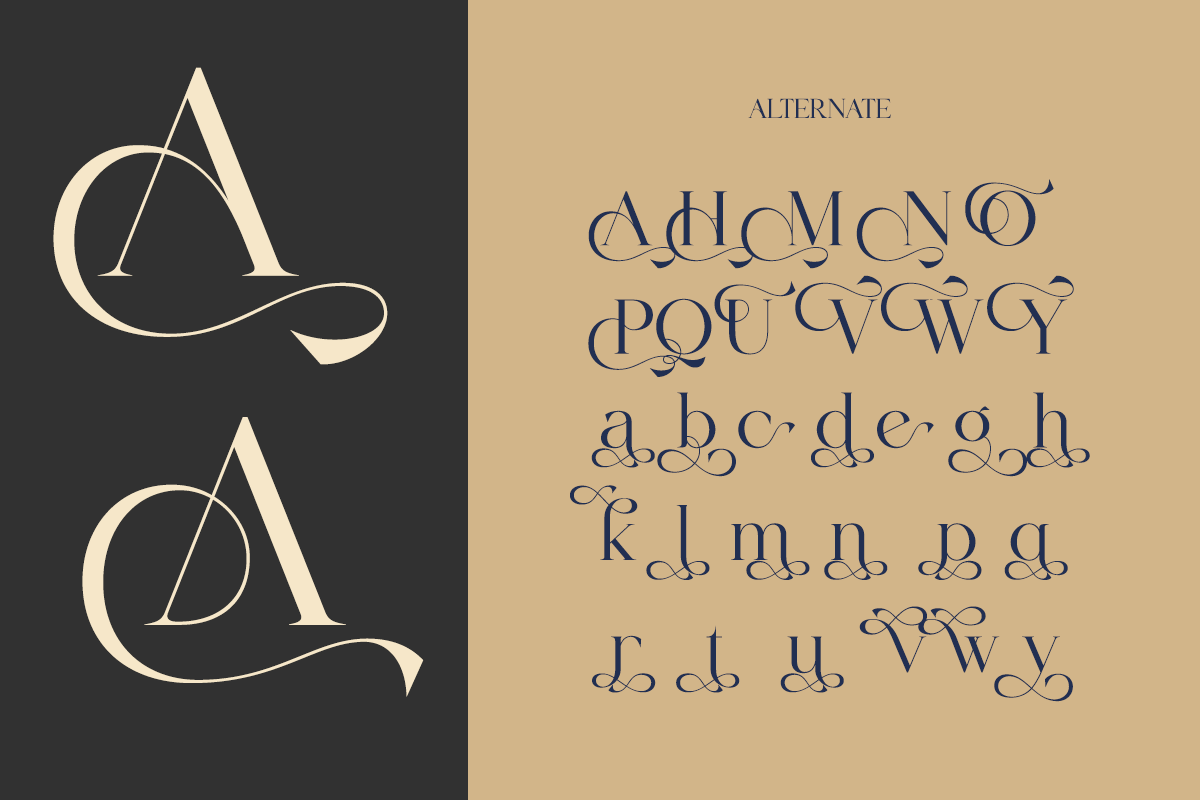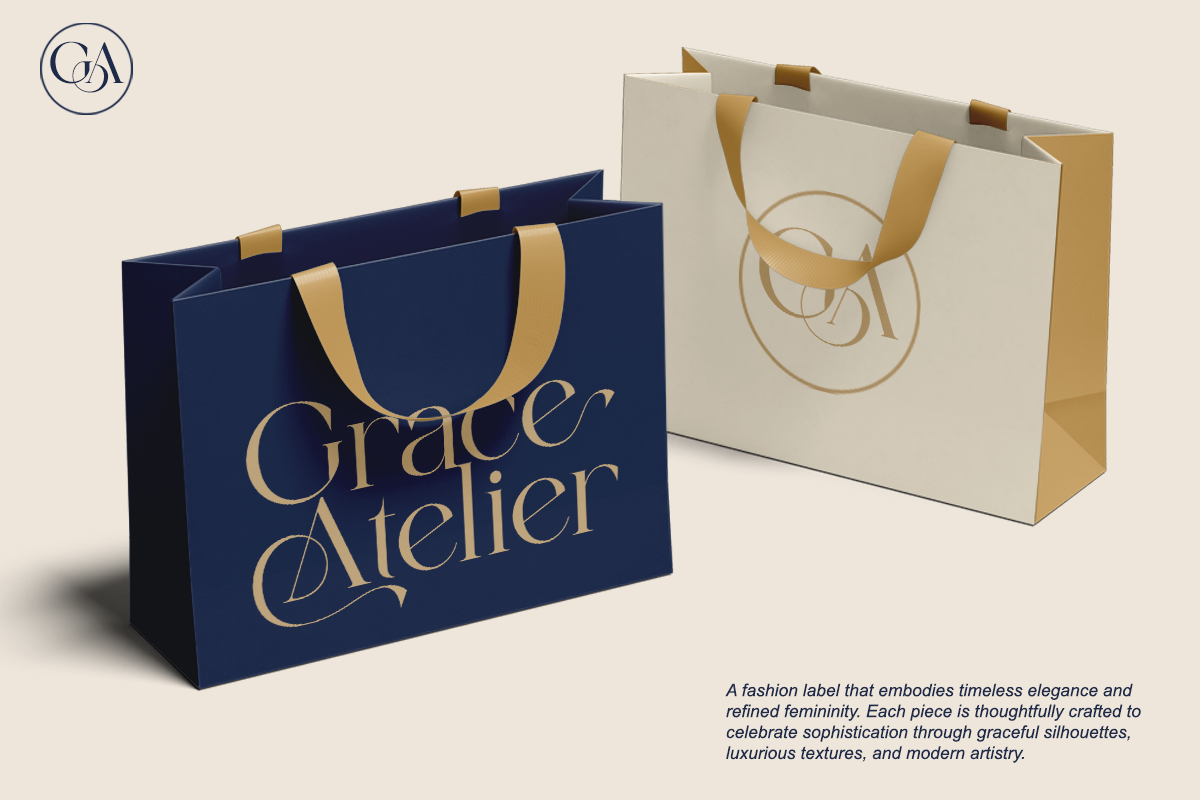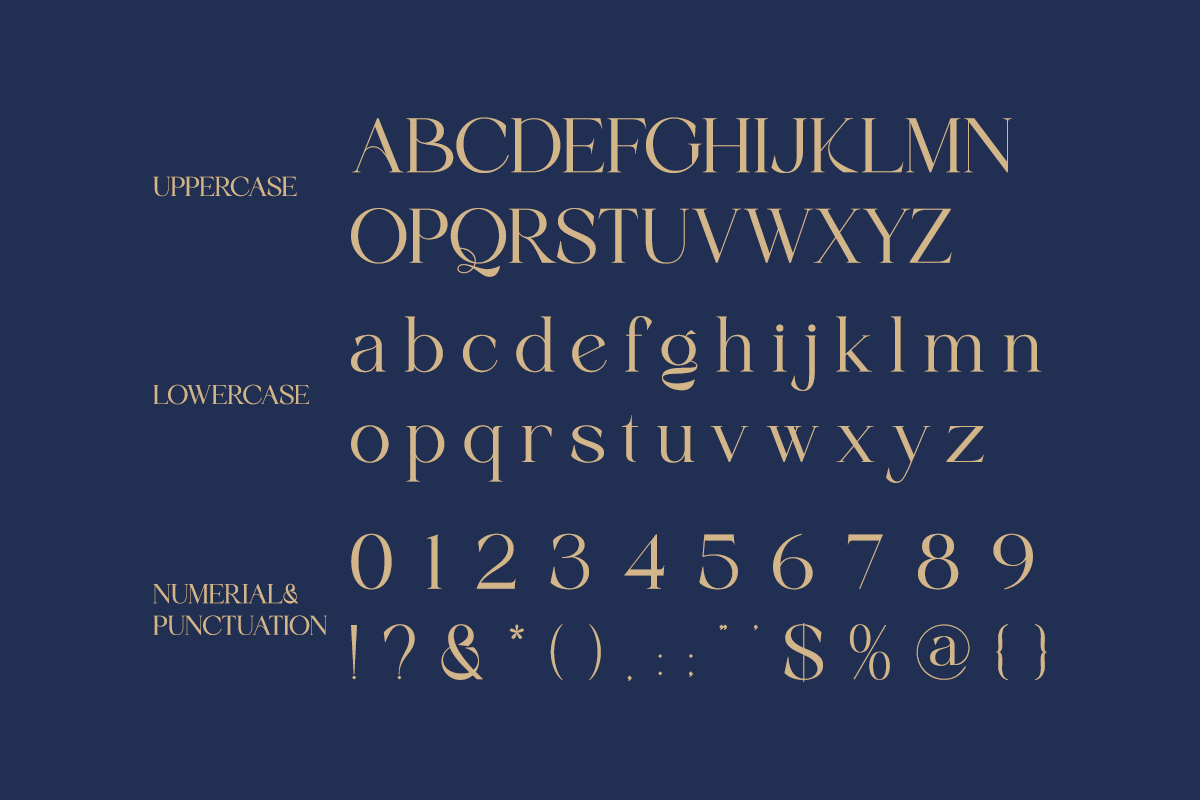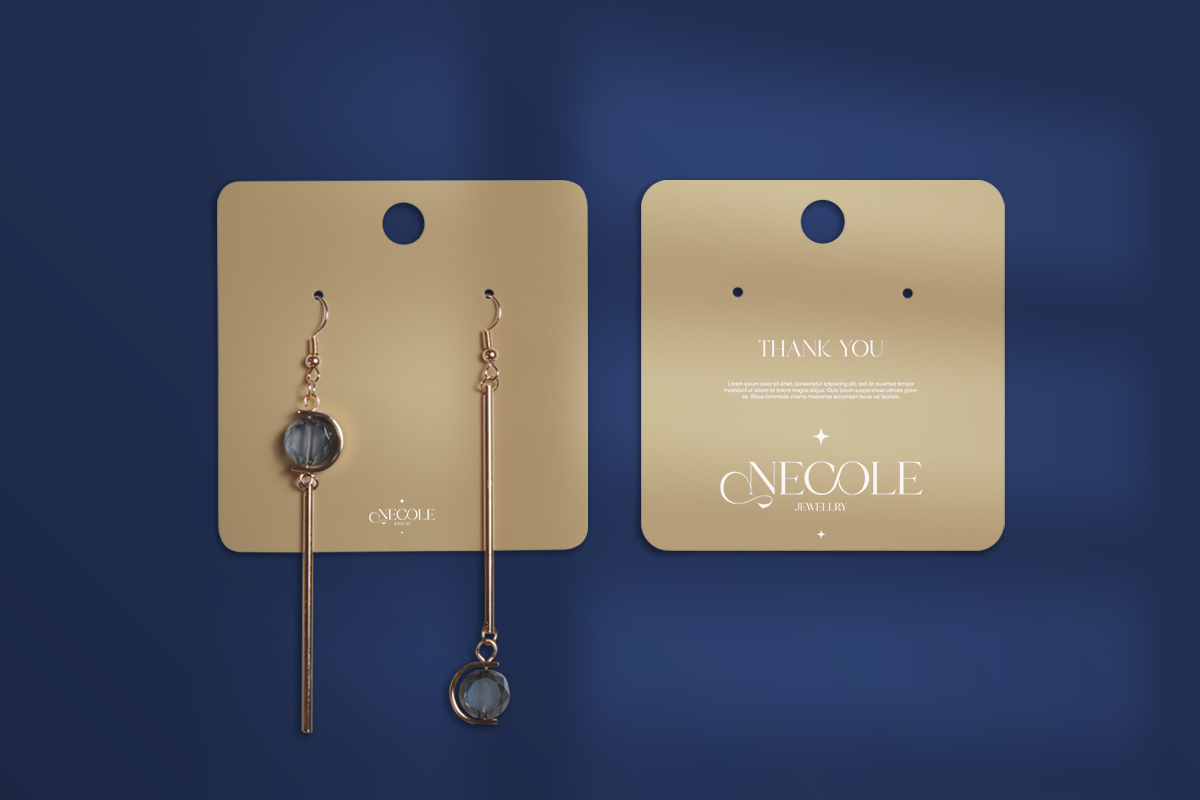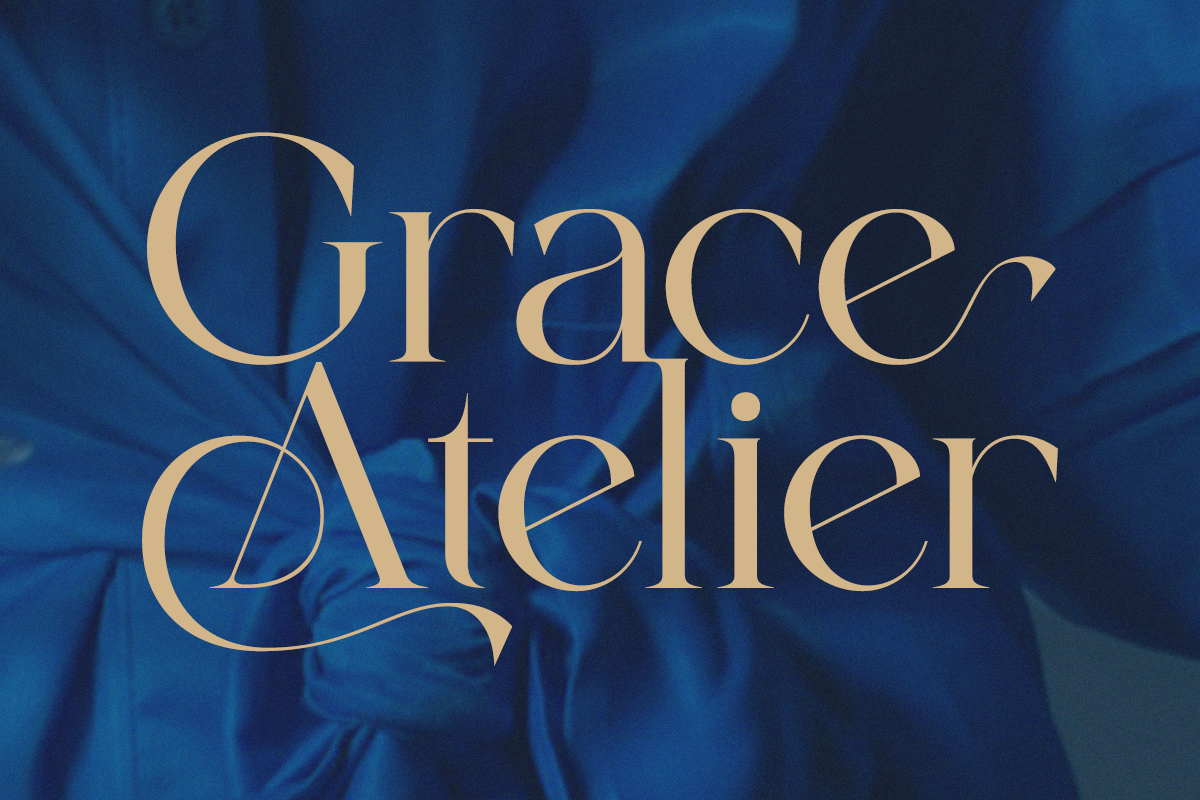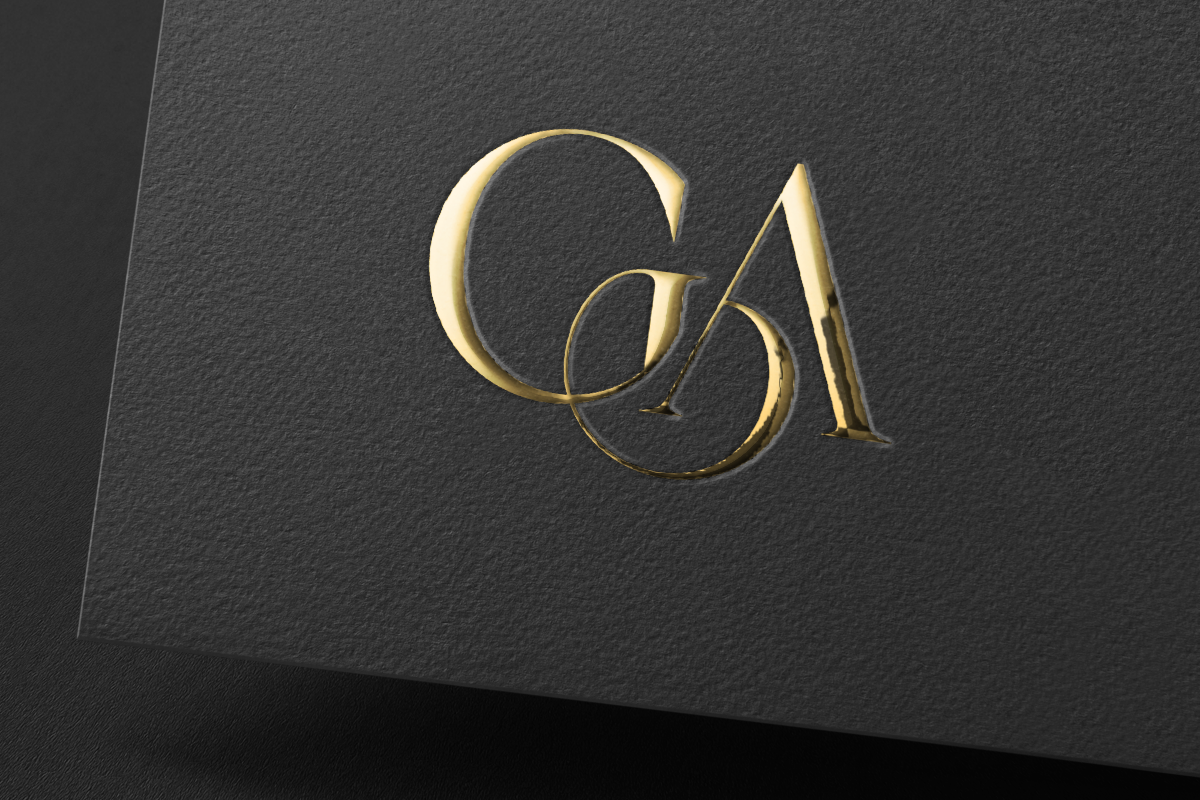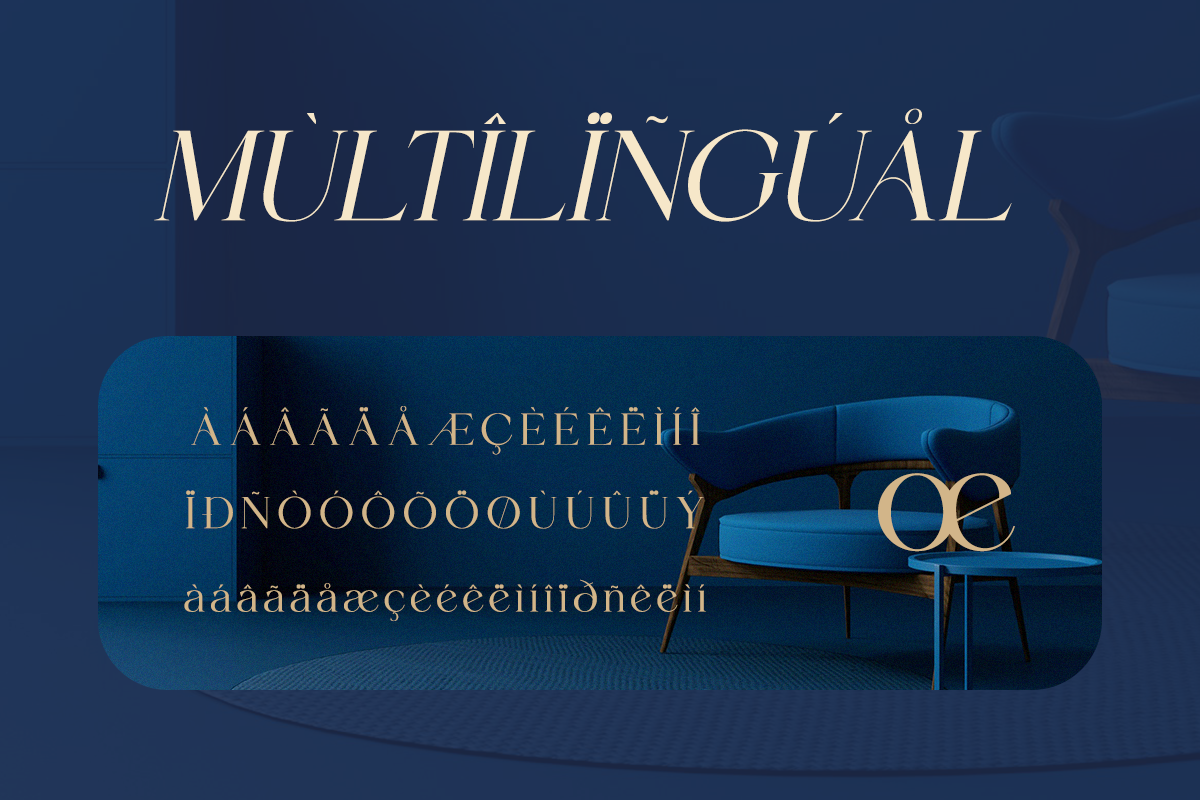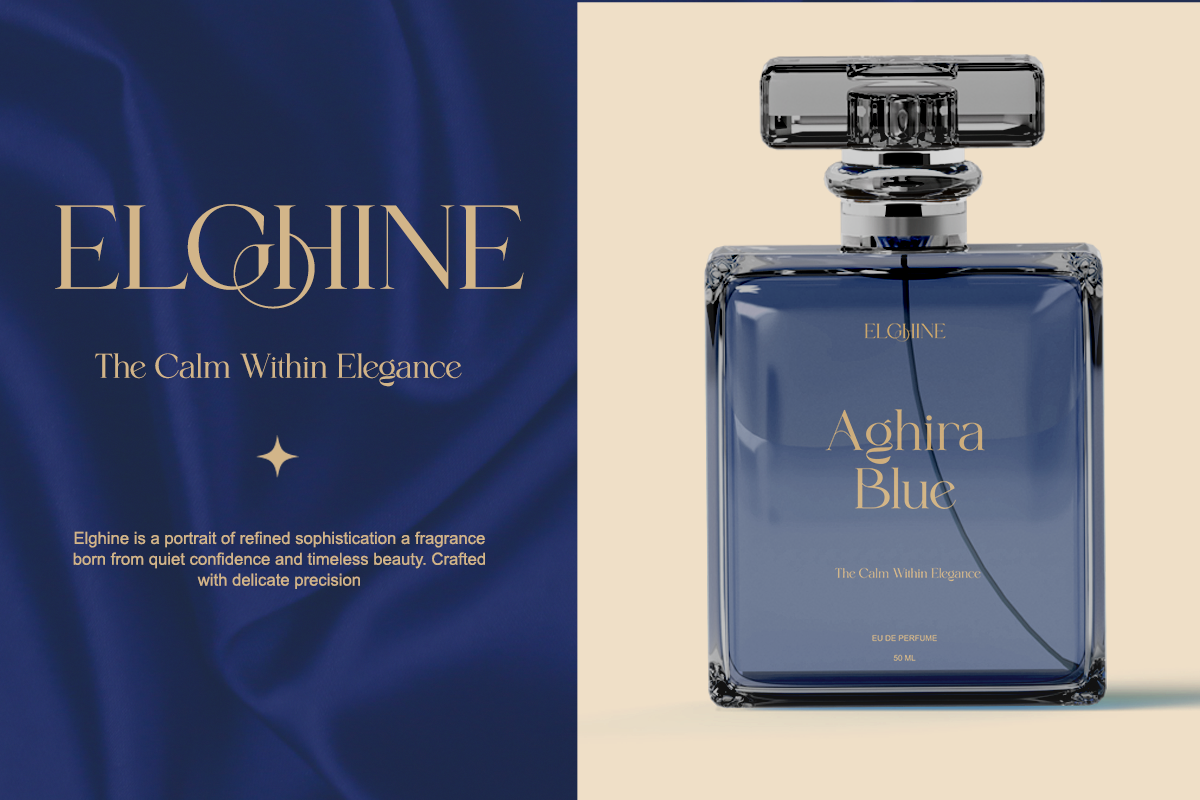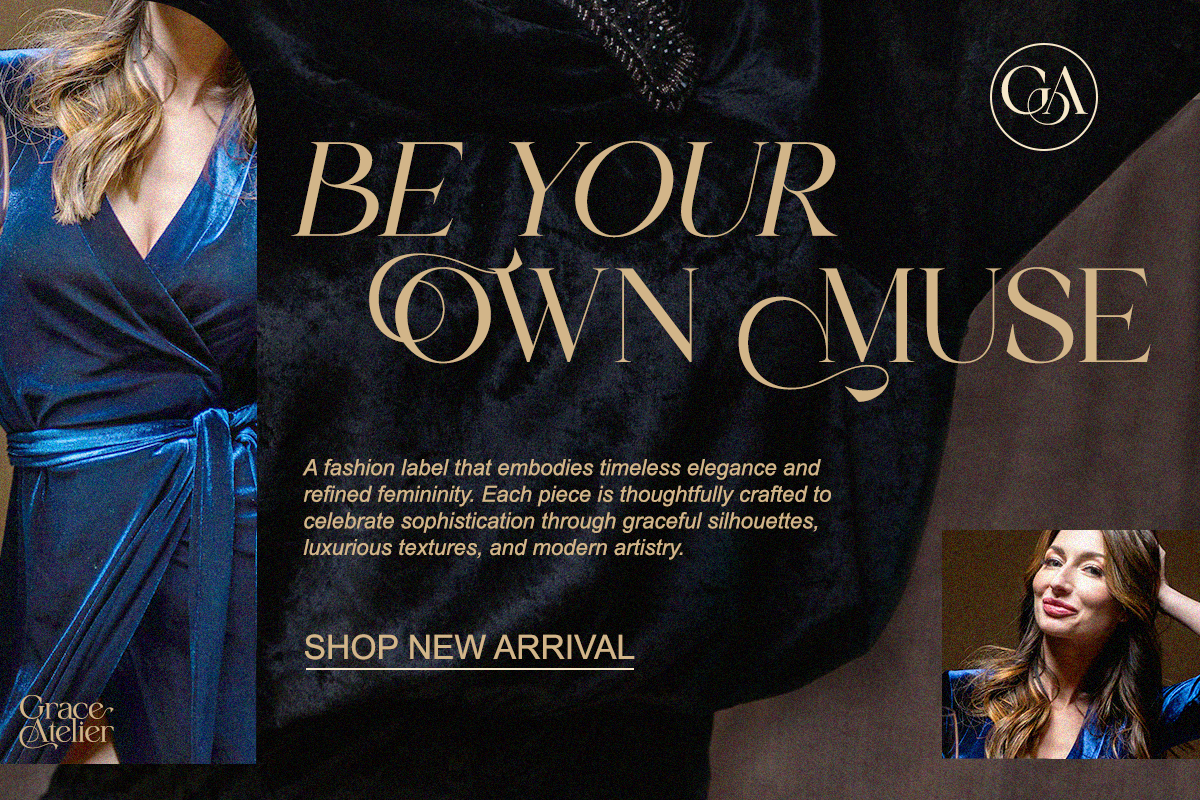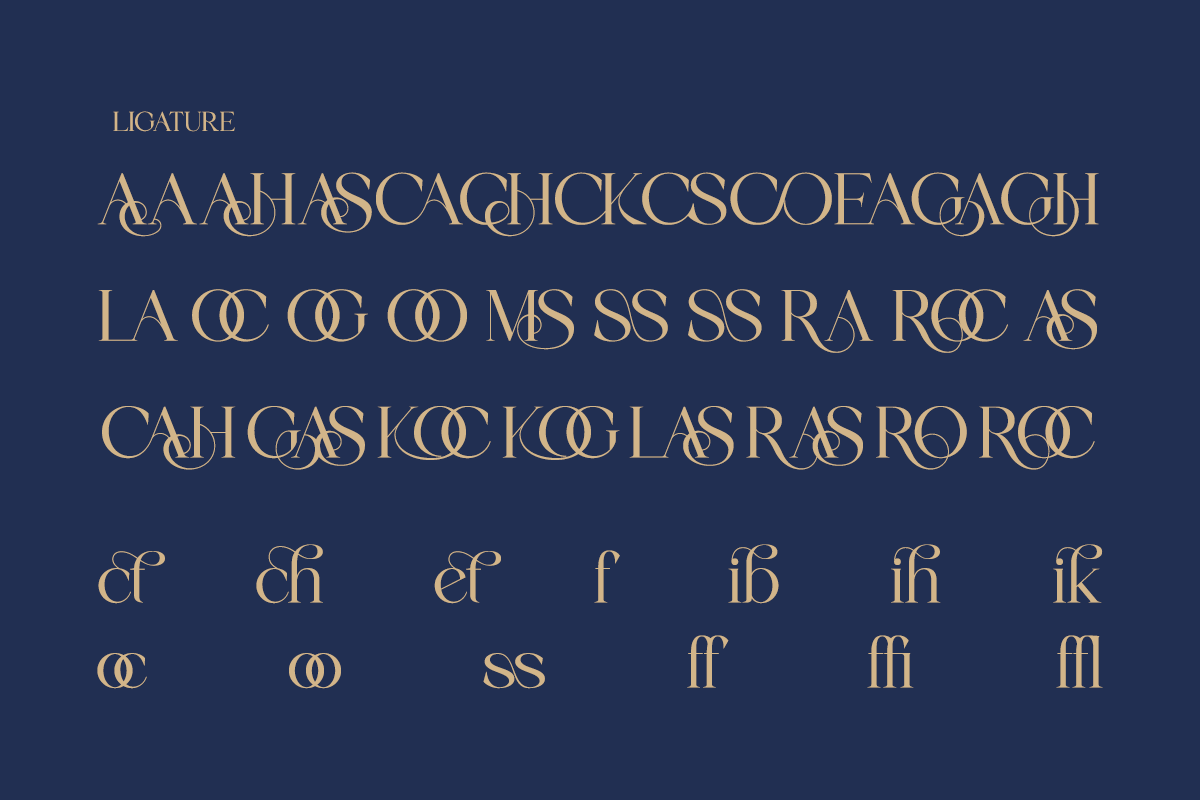
Aulisse - A Modern Elegant Serif
Meet Aulisse, a modern serif font designed with elegance and clarity in mind. Its smooth curves and balanced contrast create a calm, sophisticated tone that elevates branding and editorial projects.
Perfect for fashion brands, beauty packaging, magazine headlines, or wedding designs, Aulisse delivers a timeless yet modern typographic feel.
- Regular & Italic
- Full uppercase & lowercase
- Alternates and ligatures
- Elegant contrast strokes
Perfect For Editorial layouts, beauty branding, boutique logos, fashion design, luxury packaging, wedding stationery, and lifestyle visuals.